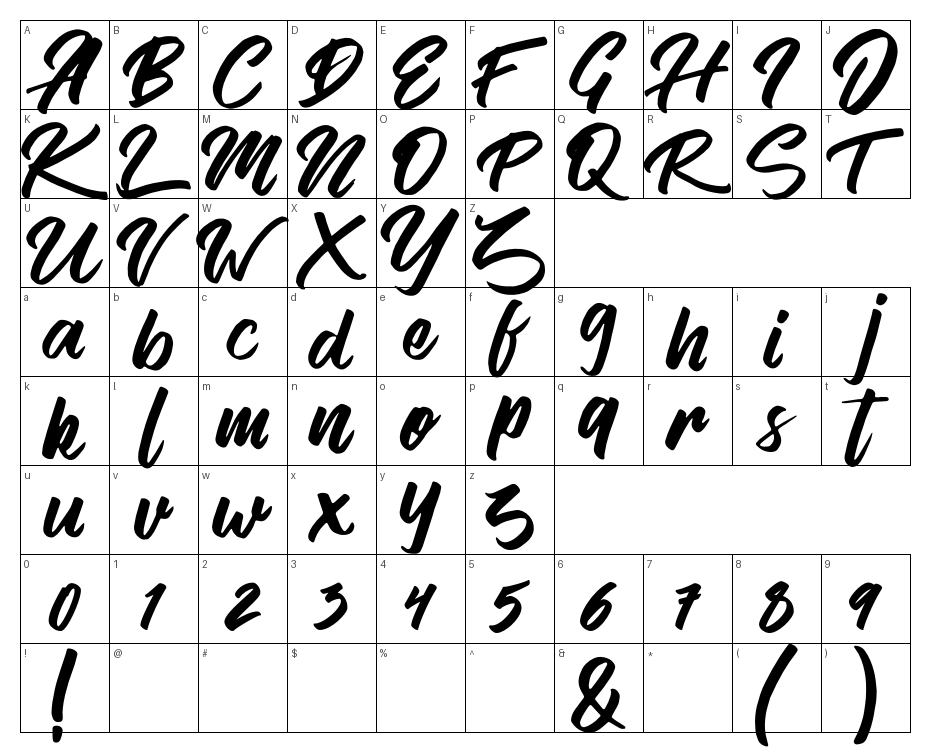
Vendetta
Drhd Studio
Designer Note
Say hello for Vendetta Handstylish Font! Best match for logos, header, titles, prints & other creative process possibilities.
Create a extraordinary handstylish results by using Vendetta Handstylish Font!